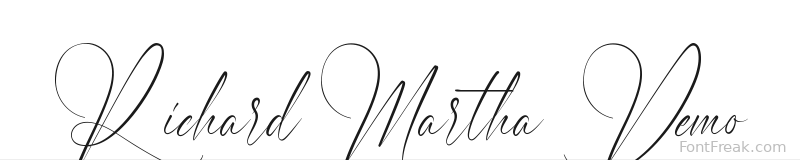
Richard Martha Demo
Richard Martha Demo, designed by Noah Type, is a stunning script font that embodies elegance and sophistication. This freeware font features flowing, cursive letterforms that exhibit a delightful balance between fluidity and readability. The strokes are characterized by a moderate contrast, with gentle curves and tails that add a touch of whimsy to each character, making it perfect for various creative applications.
Visually, the Richard Martha Demo font showcases a graceful, organic feel with a slightly varying stroke weight, which enhances its artistic appeal. The spacing between letters is thoughtfully crafted to ensure clarity while maintaining a cohesive look, allowing the font to shine in both headlines and body text. Its decorative elements, such as the flourishes on the ascenders and descenders, contribute to its overall charm, making it a standout choice for design projects.
This font is ideal for a variety of use cases, including wedding invitations that require a personal touch, restaurant menus that aim to convey a warm and inviting atmosphere, and movie posters that need an eye-catching title. Additionally, it works beautifully for branding projects, where a unique and memorable typeface can elevate a business's identity. The Richard Martha Demo font is particularly appealing to graphic designers, small business owners, and content creators who seek to add a distinctive flair to their work.
What sets the Richard Martha Demo font apart is its ability to blend elegance with versatility. Whether used in print or digital formats, this font captures attention while exuding a sense of style. With its free download option, it invites users to incorporate its unique character into their projects, making it a valuable asset for anyone looking to enhance their design endeavors.